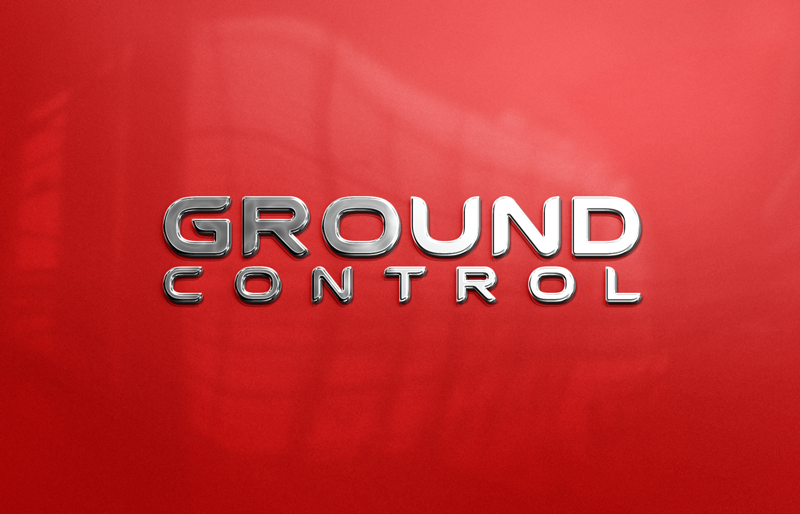
Font name: | Ground Control |
Author: | HENRIavecunK |
A soft techno and almost square typeface to use for your Ibiza-flyers, car logos or anything you like. If your kind enough to donate $5 or more you get a basic commercial license for 1-5 users, and if the font is made into a PRO version later on then you get a copy of that, free of extra charge. I won't waste the donations on booze and cheap women, they will fund the purchase of FontLab (really expensive software). Thanks for you support! |